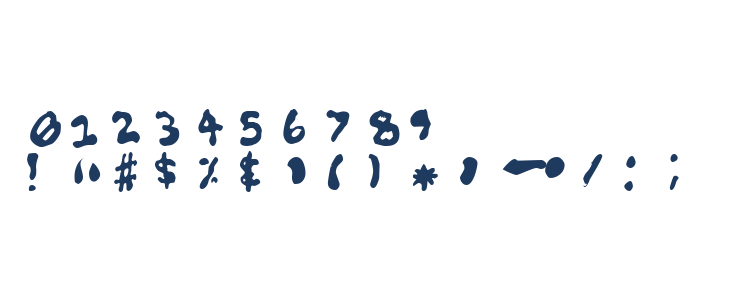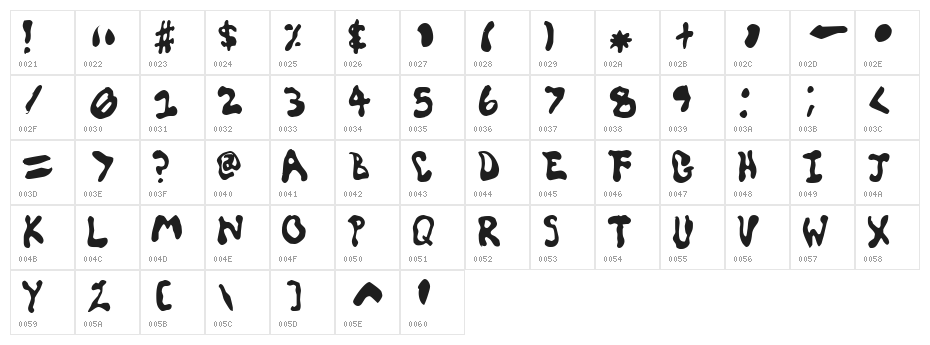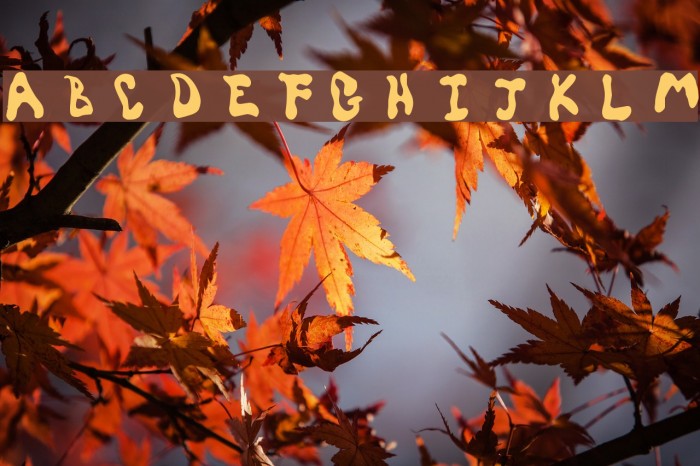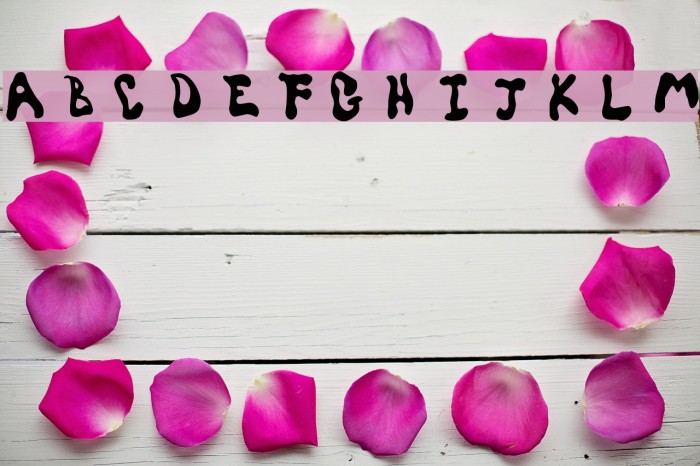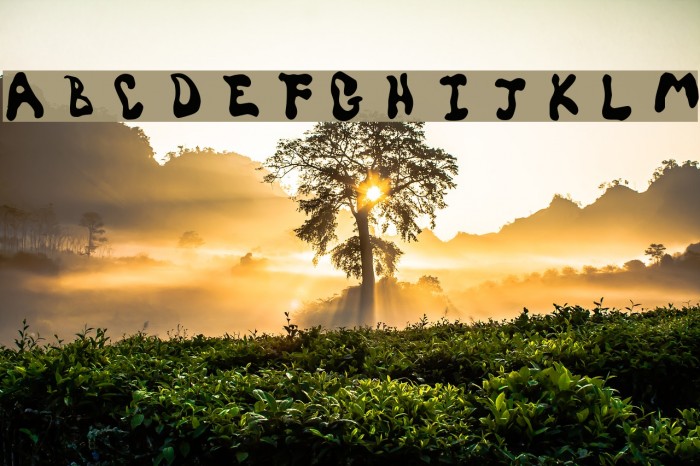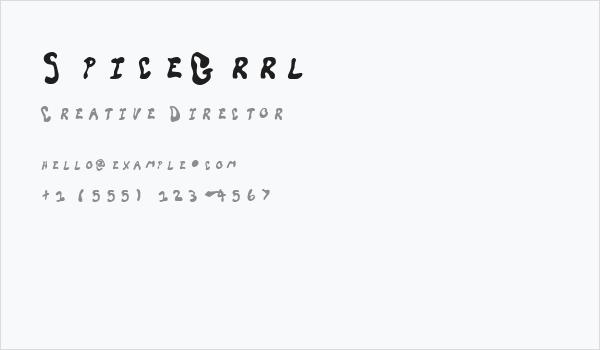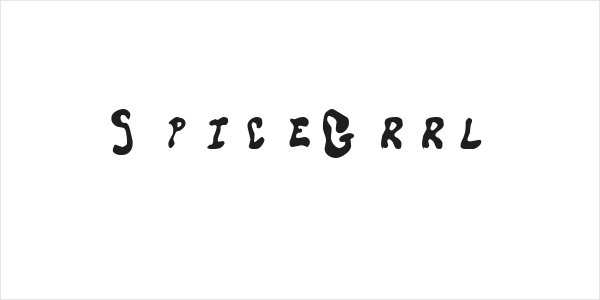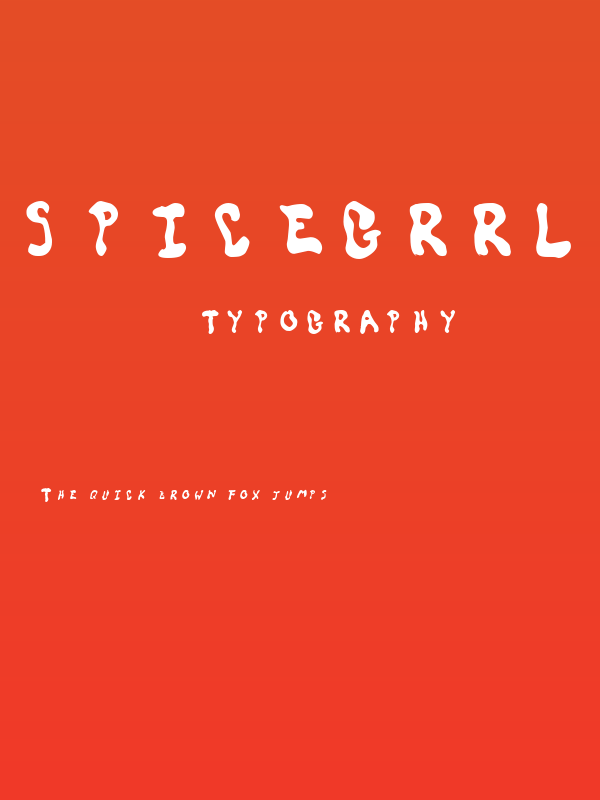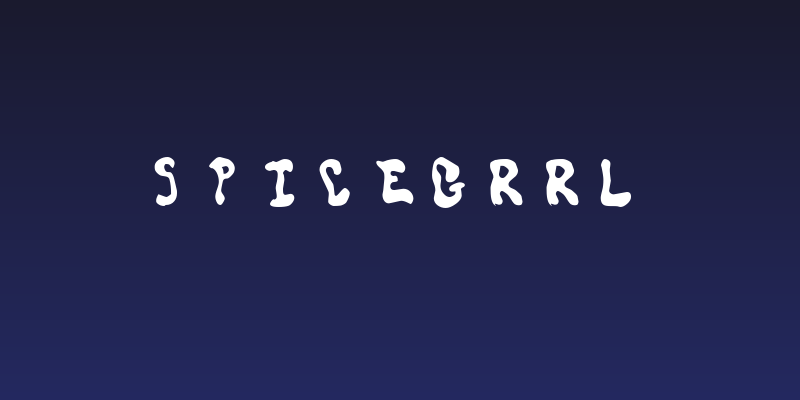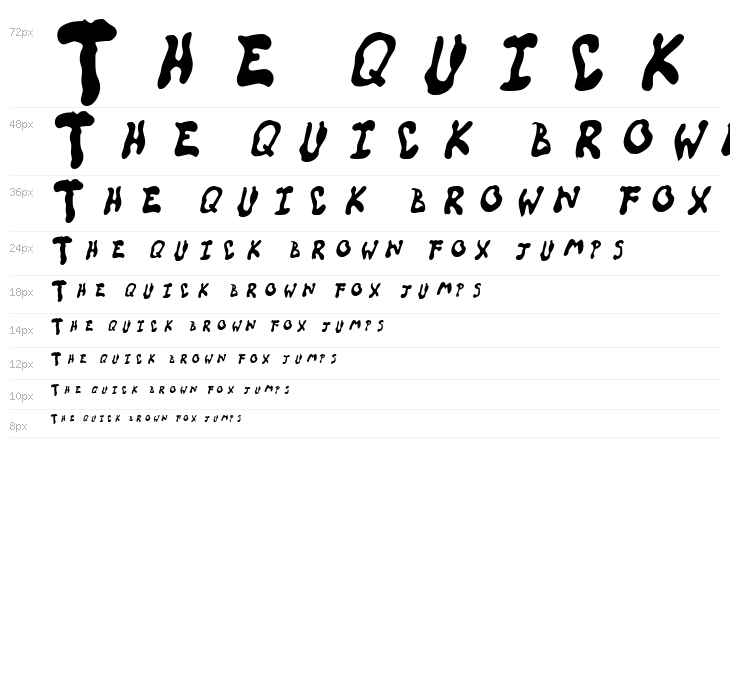
SpiceGrrl Font
SpiceGrrl Description
This font features a playful and bold design with a hand-drawn aesthetic. Each character is uniquely crafted with irregular shapes, giving it a dynamic and energetic feel. The strokes are thick and uneven, creating a sense of movement and spontaneity. The overall appearance is informal and artistic, making it suitable for creative and expressive projects. The font includes a full set of uppercase and lowercase letters, numbers, and a variety of special characters, all maintaining the same lively style.
Overall StylePlayful, Artistic
Use CaseHeadlines, Logos, Creative projects
Proposed ProjectsIdeal for posters, album covers, children's books, and creative branding.